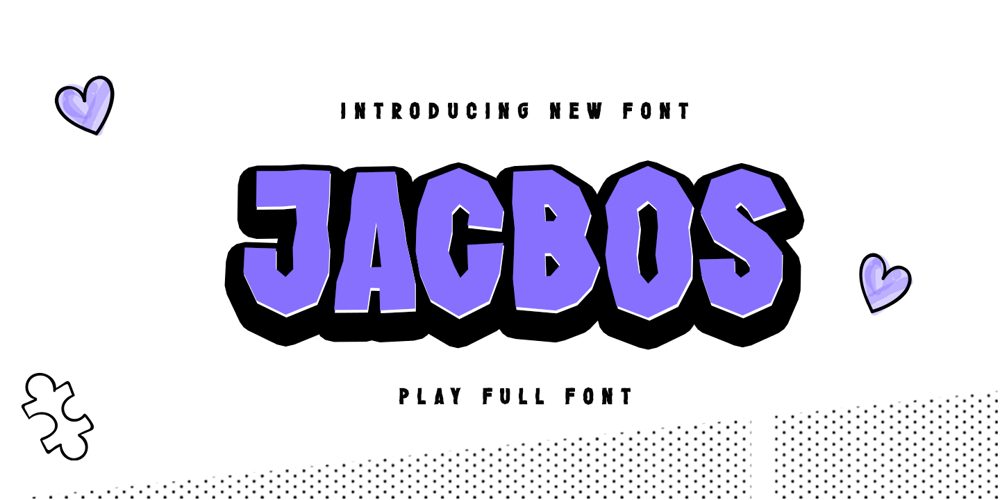
Jacbos Font Family was designed by Rozikan and published by Twinletter. Jacbos contains 1 styles and family package options. Jacbos is a playful font with an abstract shape like paper folds, which is unique but elegant and attractive in its useAll Capital sans is charming and brave, a font with a bold style and strong character makes your design look bold to convey a message to the audience in every design.This font is perfect for a variety of school design projects, essays, vintage, retro, and various outdoor events, storytelling, branding, banners, posters, movie titles, food and beverages, clothing, and more.